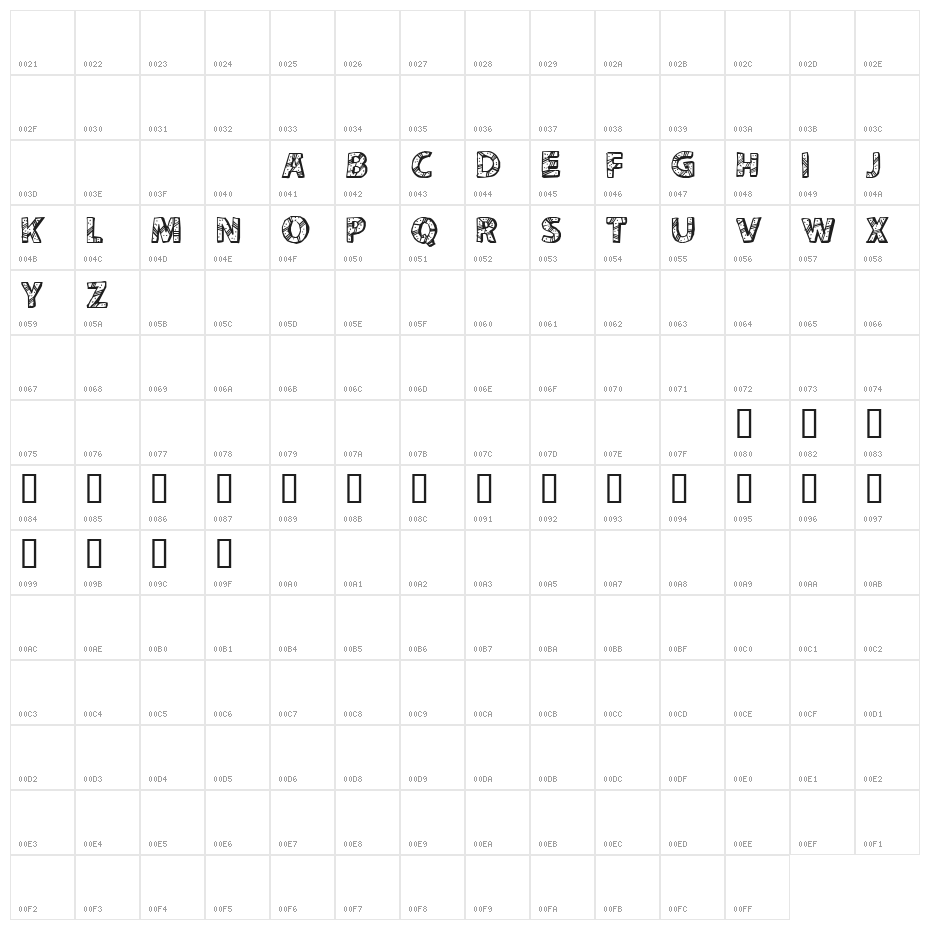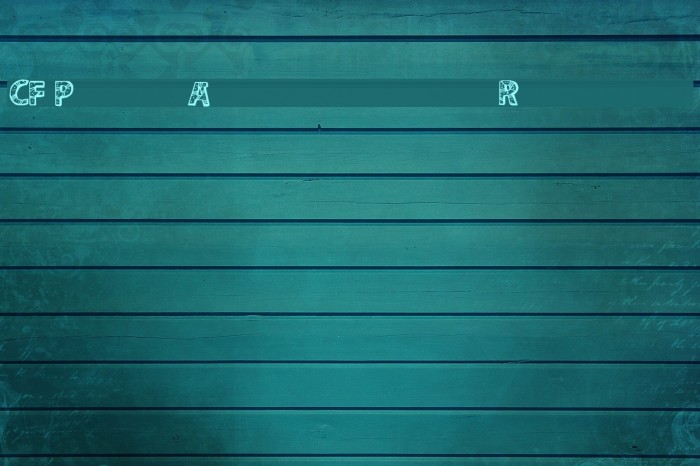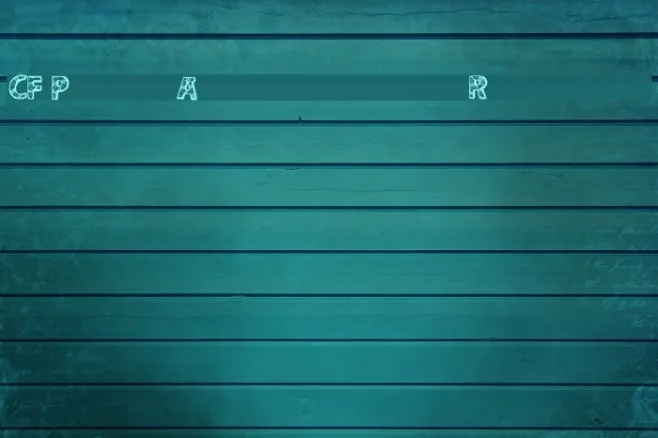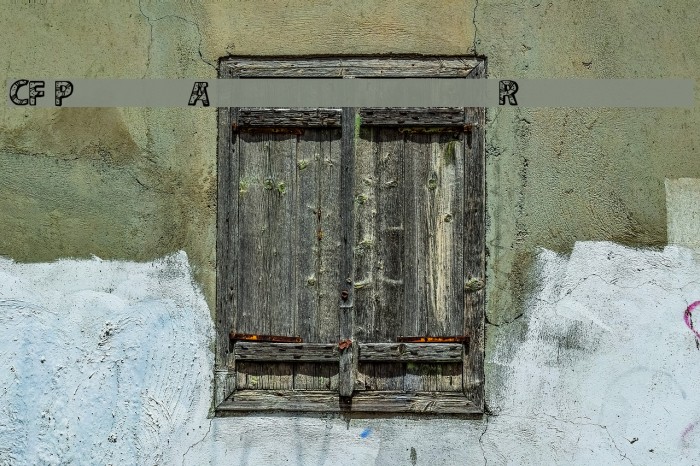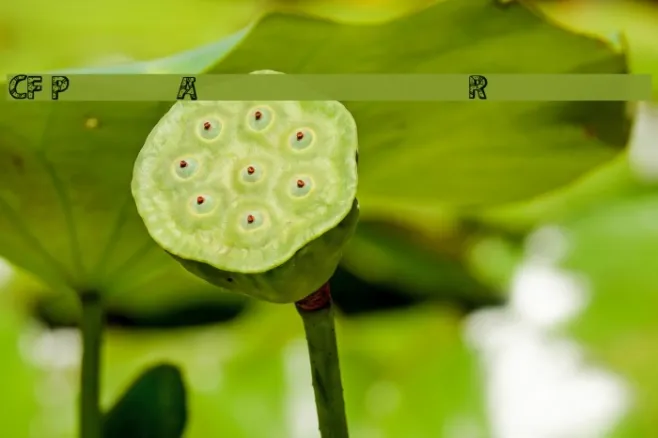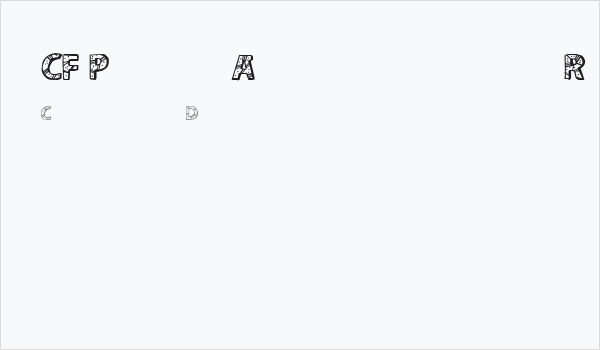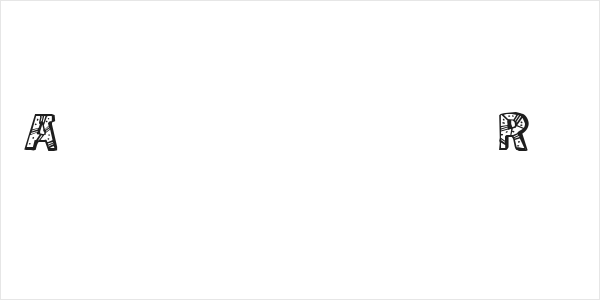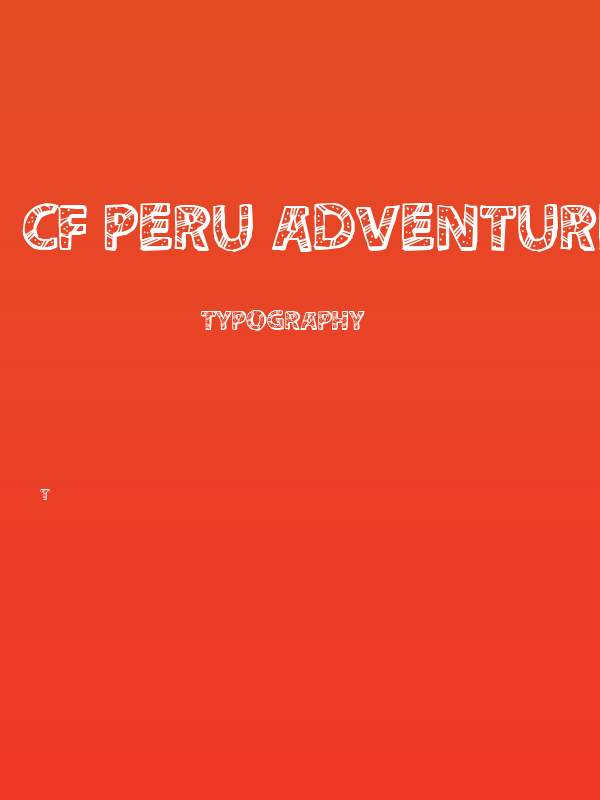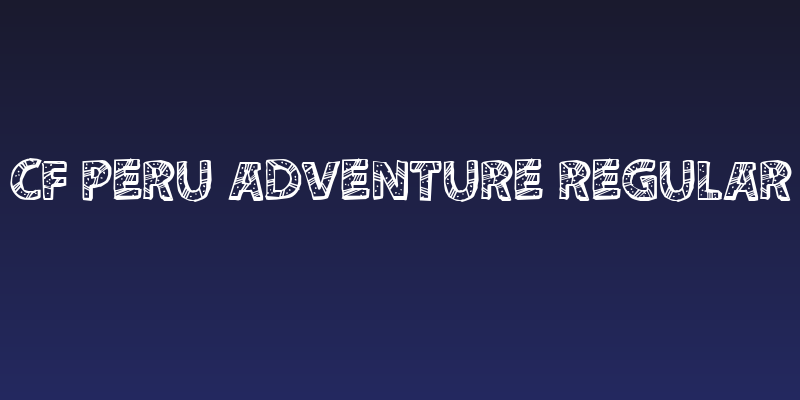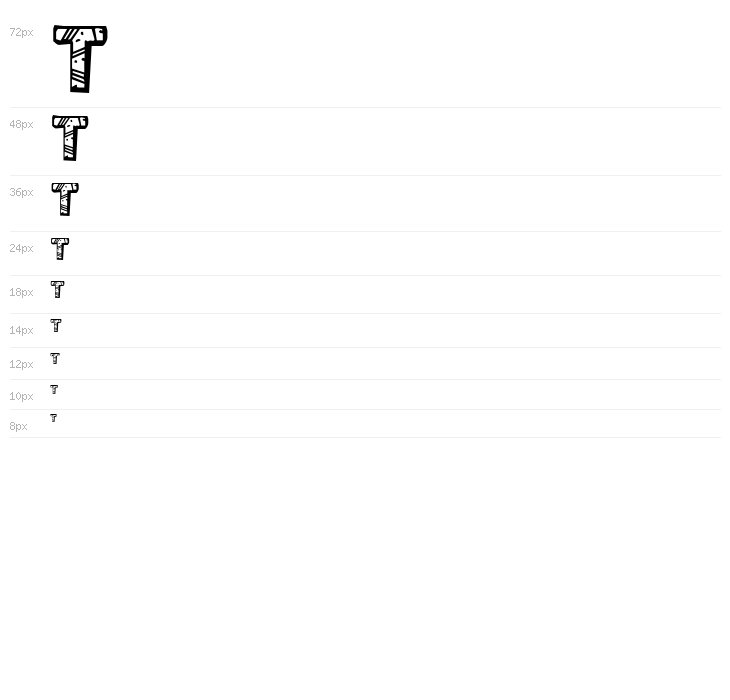
CF Peru Adventure Regular Font
CF Peru Adventure Regular Description
This font features a bold and adventurous style, characterized by its decorative patterns within each letter. The design incorporates intricate line work and geometric shapes, giving it a unique and playful appearance. The uppercase letters are crafted with a sense of movement and energy, making them stand out in any design. The font's artistic elements evoke a sense of exploration and creativity, perfect for projects that require a touch of whimsy and cultural flair.